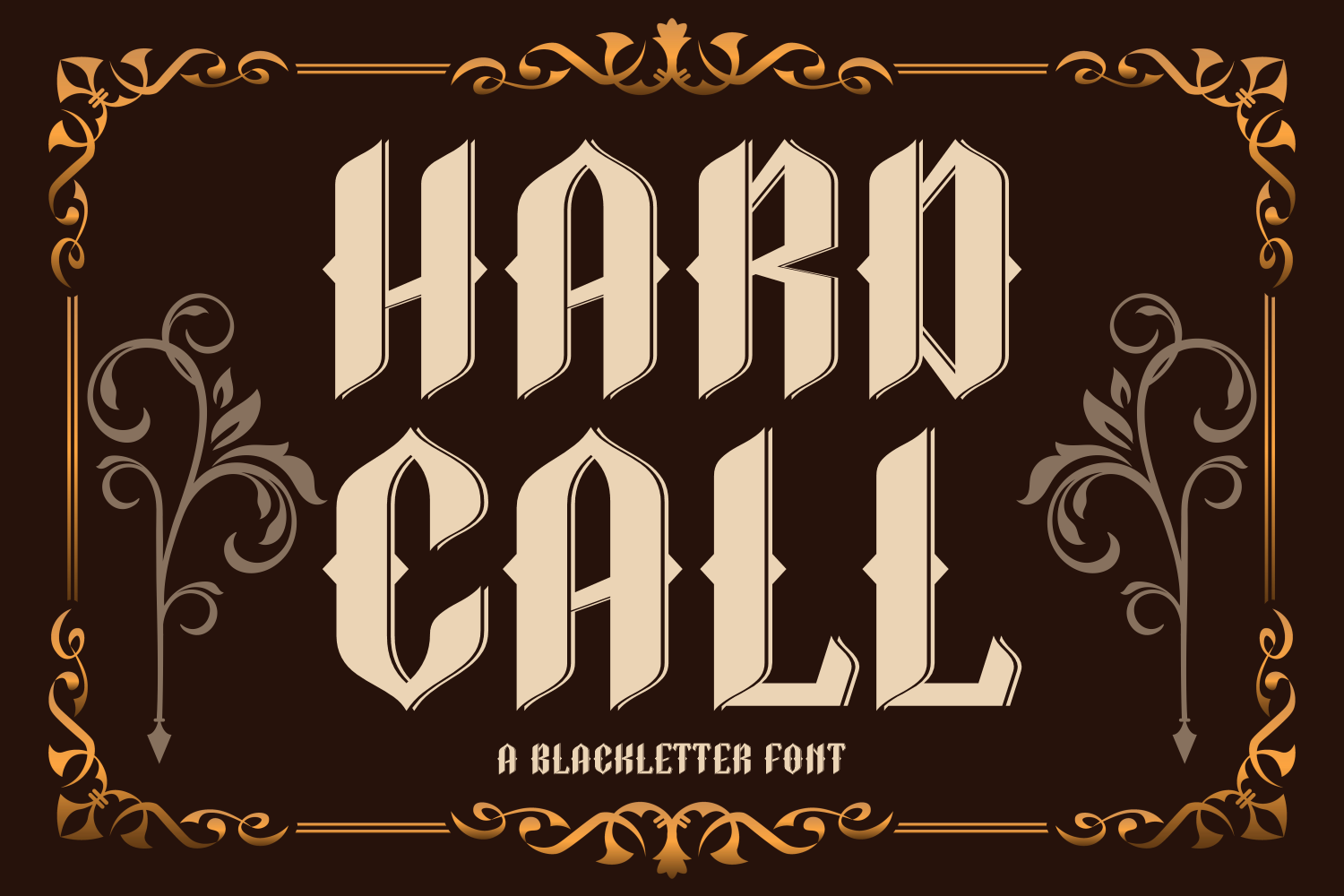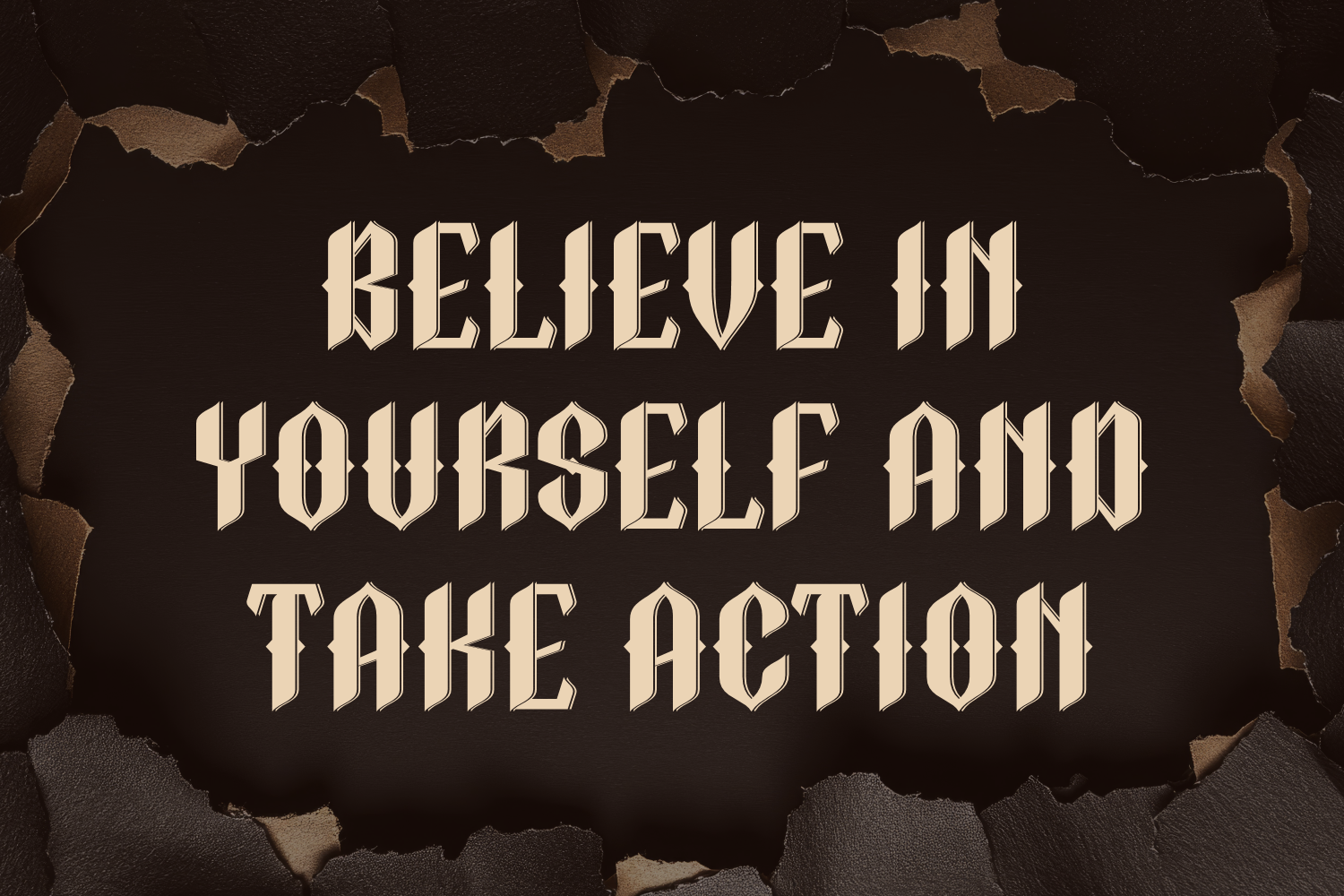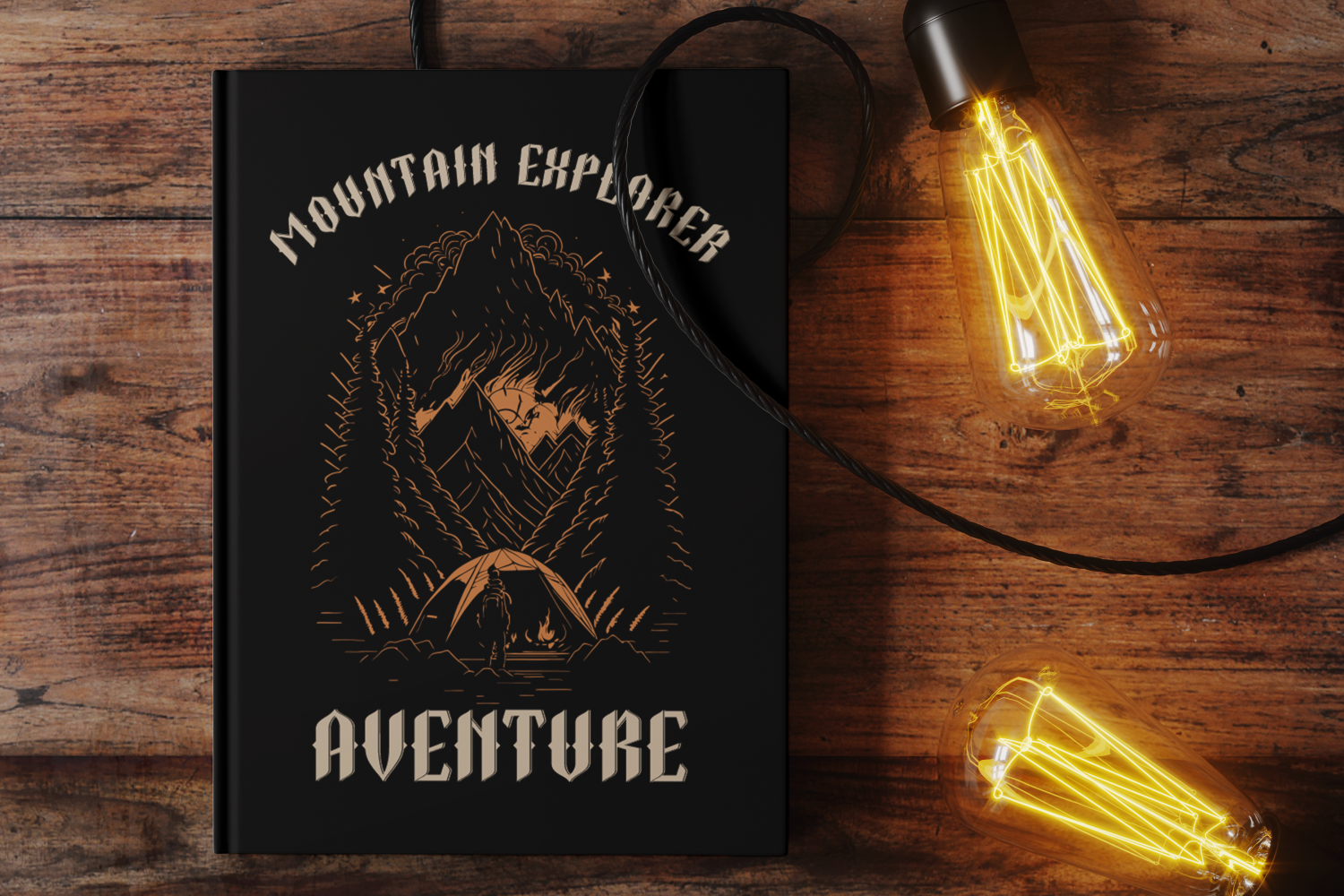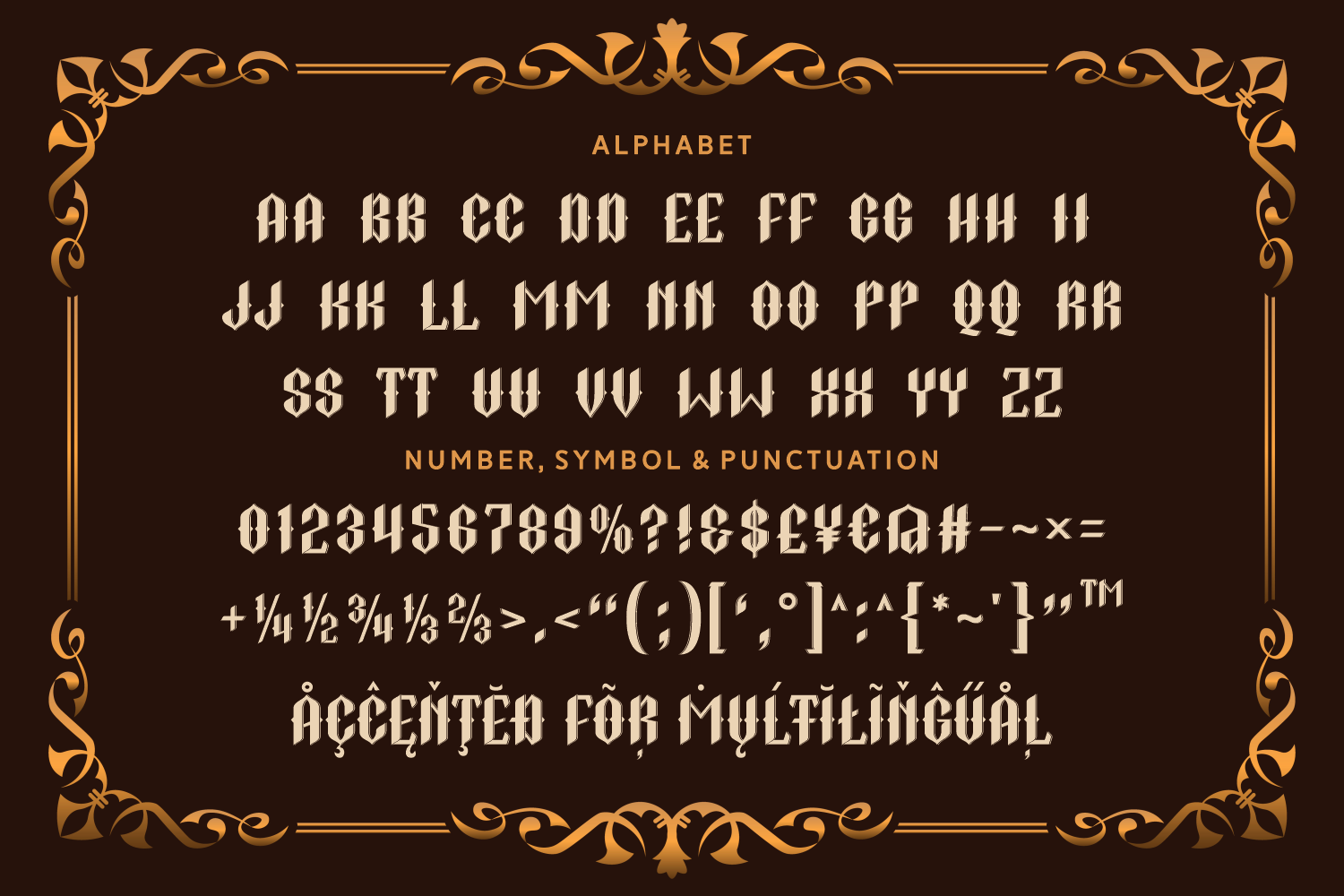
Hard Call is a vintage-inspired blackletter font with decorative borders and strong vertical strokes. Perfect for western posters, tattoo designs, or retro product packaging.